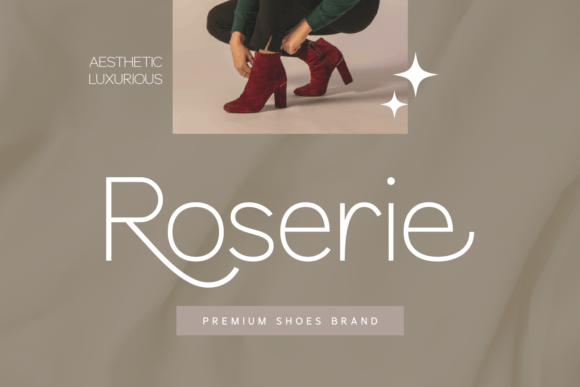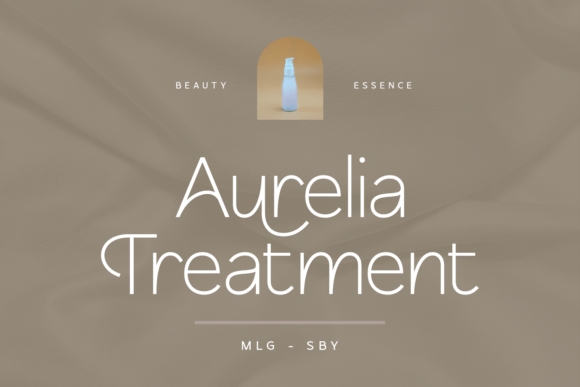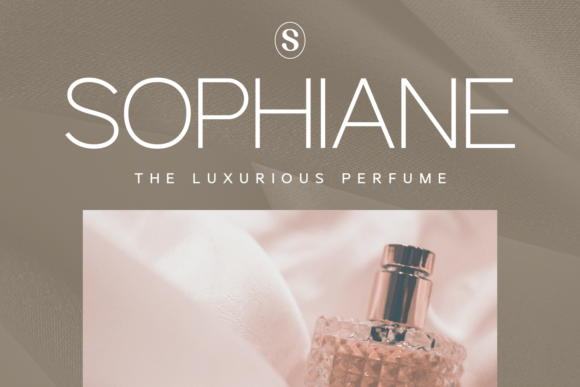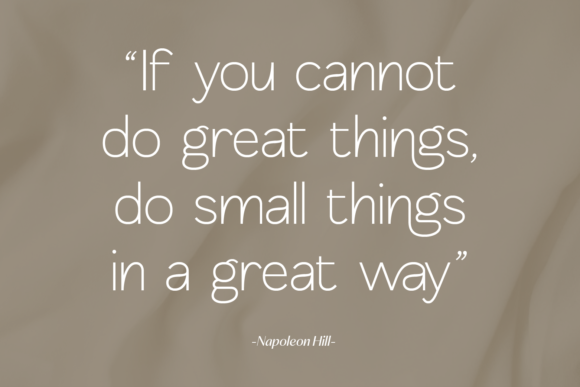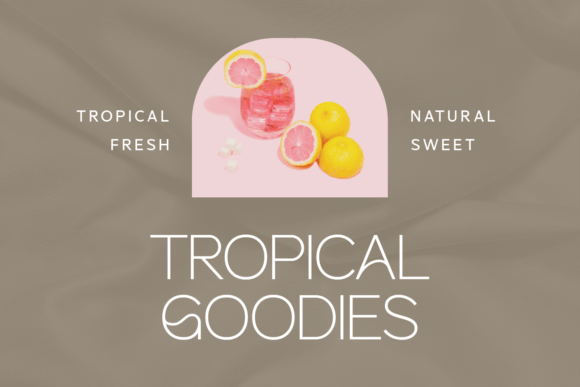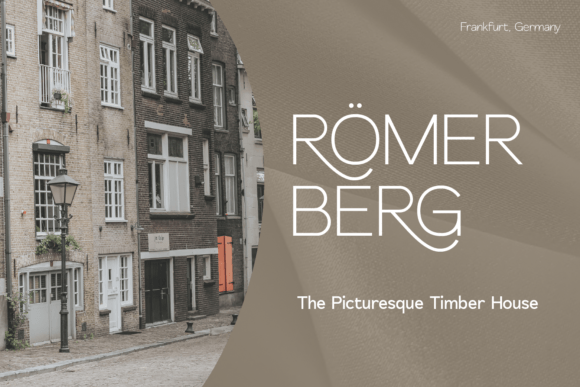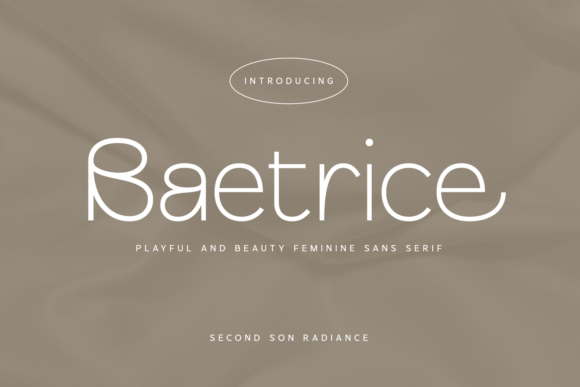
Introducing Baetrice Font: Elevate Your Designs with Elegance and Sophistication
In the world of typography, fonts play a crucial role in conveying the tone and aesthetic of a design. For those seeking to create luxurious, elegant, and feminine projects, Baetrice Font is an exceptional choice. This stylish and elegant sans serif font is specifically designed to meet the needs of designers and crafters looking to produce modern, chic designs that exude sophistication.
What Makes Baetrice Font Stand Out?
Baetrice Font is not just another sans serif font; it’s a carefully crafted typeface that embodies elegance and refinement. Its clean lines, subtle curves, and precise letter spacing make it perfect for a wide range of applications, from branding and advertising to packaging and digital media. Whether you’re working on a high-end fashion brand, a luxury product, or a sophisticated digital platform, Baetrice Font is sure to elevate your design to new heights.
Key Features of Baetrice Font
- Sans Serif Elegance: Baetrice Font boasts a sleek and modern sans serif design, making it ideal for projects that require a clean and sophisticated look.
- Feminine Touch: With its subtle curves and refined lines, Baetrice Font adds a touch of femininity to any design, making it perfect for projects that require a delicate and elegant approach.
- Luxury and Chic: Baetrice Font is specifically designed for luxury and elegant projects, ensuring that your designs exude high-end quality and sophistication.
- Modern and Versatile: This font is incredibly versatile and can be used for a wide range of applications, from digital media to print materials.
Who Can Benefit from Baetrice Font?
Baetrice Font is an excellent choice for a variety of designers and crafters, including:
- Fashion Designers: Create stunning branding, advertising, and packaging designs that exude luxury and sophistication.
- Graphic Designers: Add a touch of elegance to your designs, from business cards to billboards.
- Digital Designers: Create modern and chic digital platforms, including websites, apps, and social media graphics.
- Crafters and Makers: Use Baetrice Font to add a professional and sophisticated touch to your handmade products, including labels, packaging, and marketing materials.
How to Use Baetrice Font Effectively
To get the most out of Baetrice Font, consider the following tips:
- Pair with Contrasting Fonts: Combine Baetrice Font with contrasting fonts to create visual interest and hierarchy.
- Experiment with Colors: Baetrice Font looks stunning in a range of colors, from metallic tones to rich jewel tones.
- Play with Size and Scale: Use Baetrice Font in a variety of sizes to create visual interest and emphasis.
Baetrice Font is a stylish and elegant sans serif font that is perfectly suited for luxury, elegant, and feminine projects. With its clean lines, subtle curves, and precise letter spacing, this font is sure to elevate your designs to new heights. Whether you’re a fashion designer, graphic designer, digital designer, or crafter, Baetrice Font is an exceptional choice for creating modern, chic designs that exude sophistication.